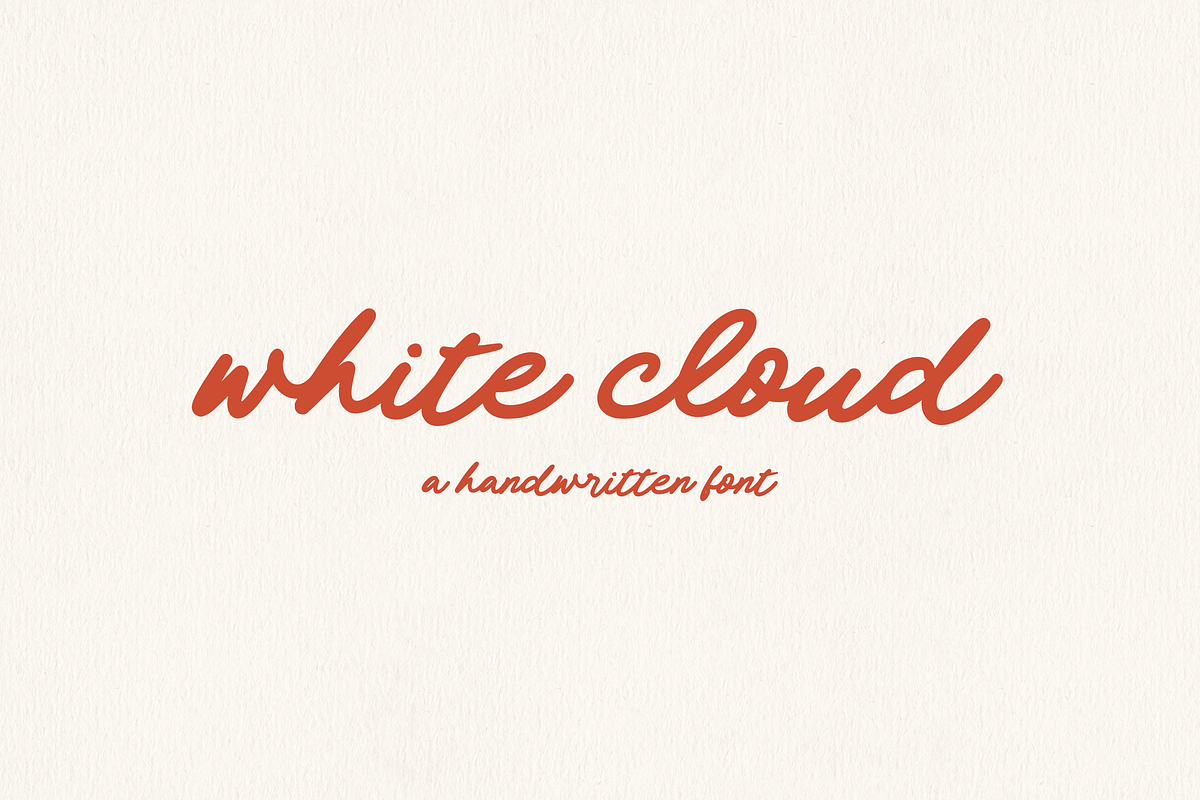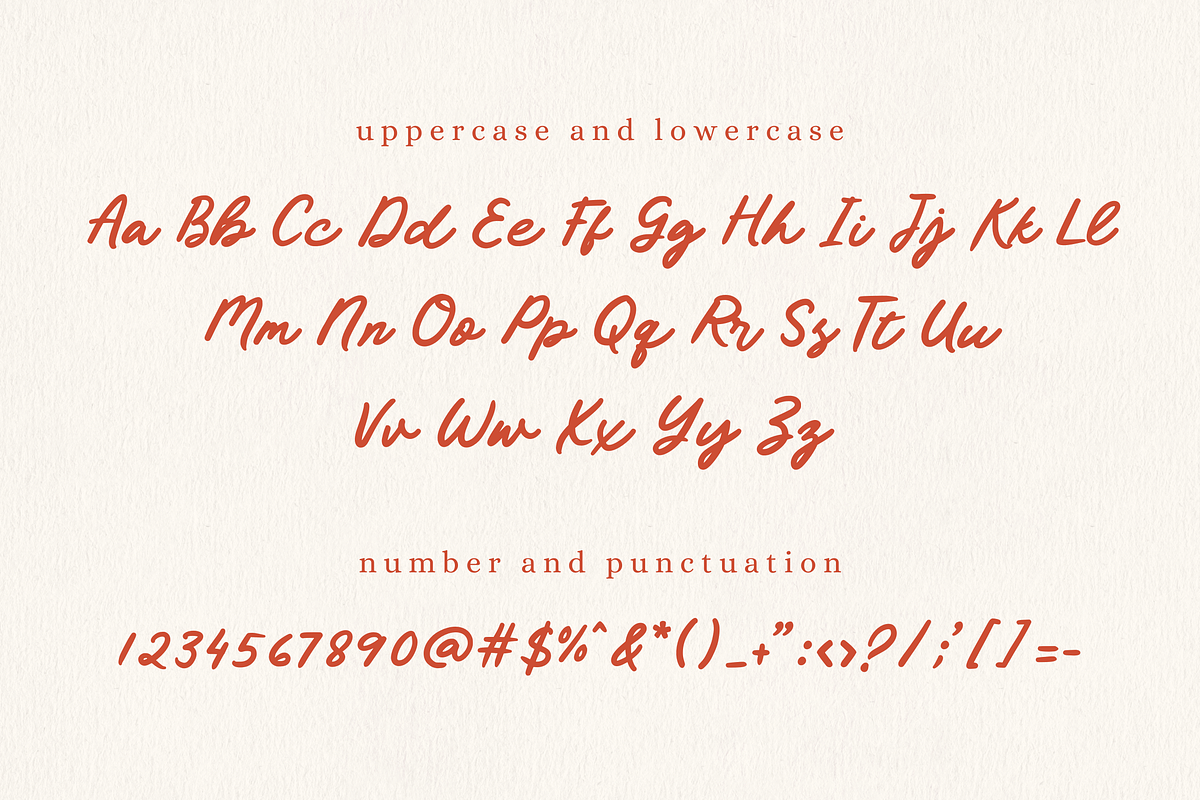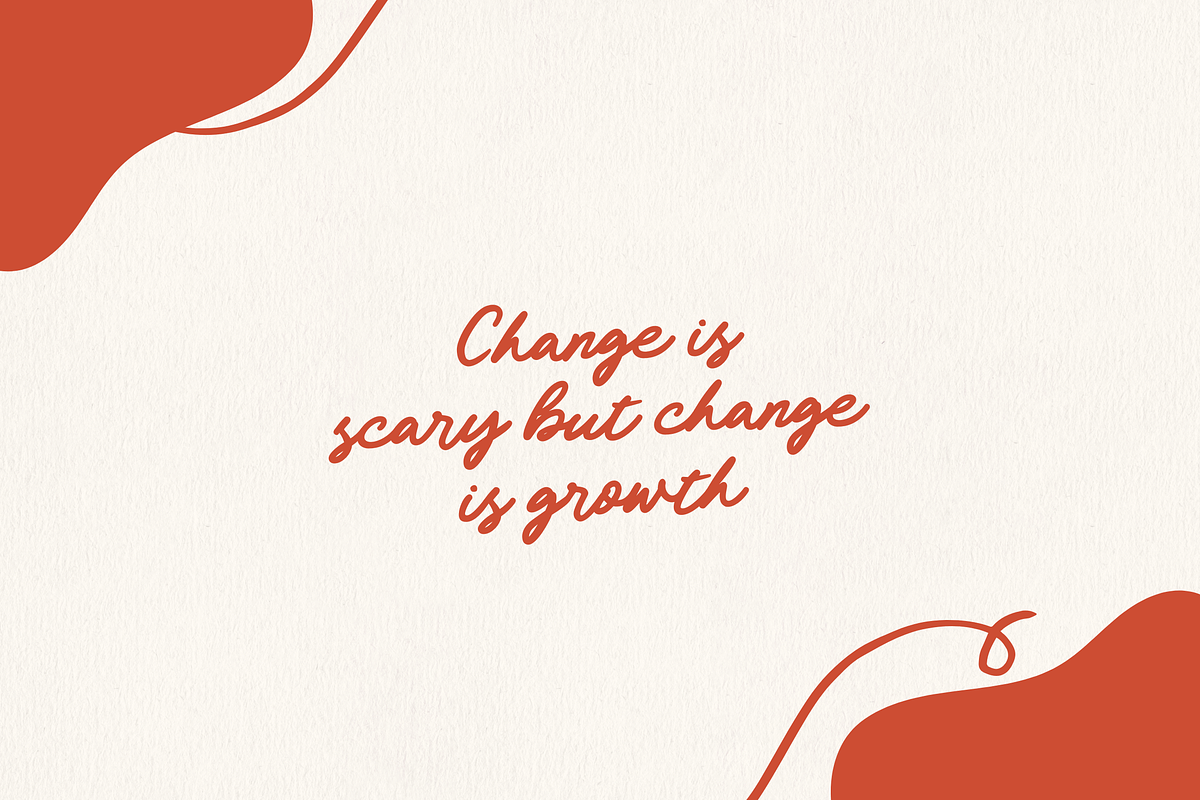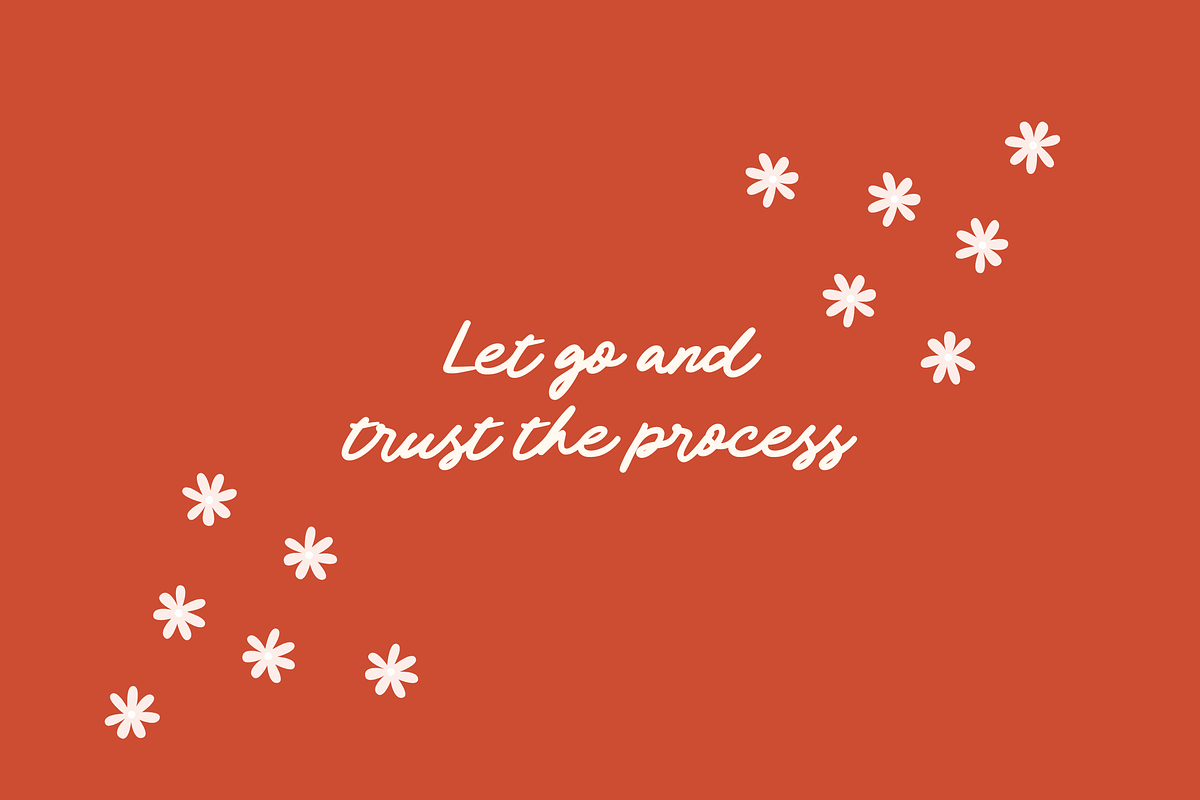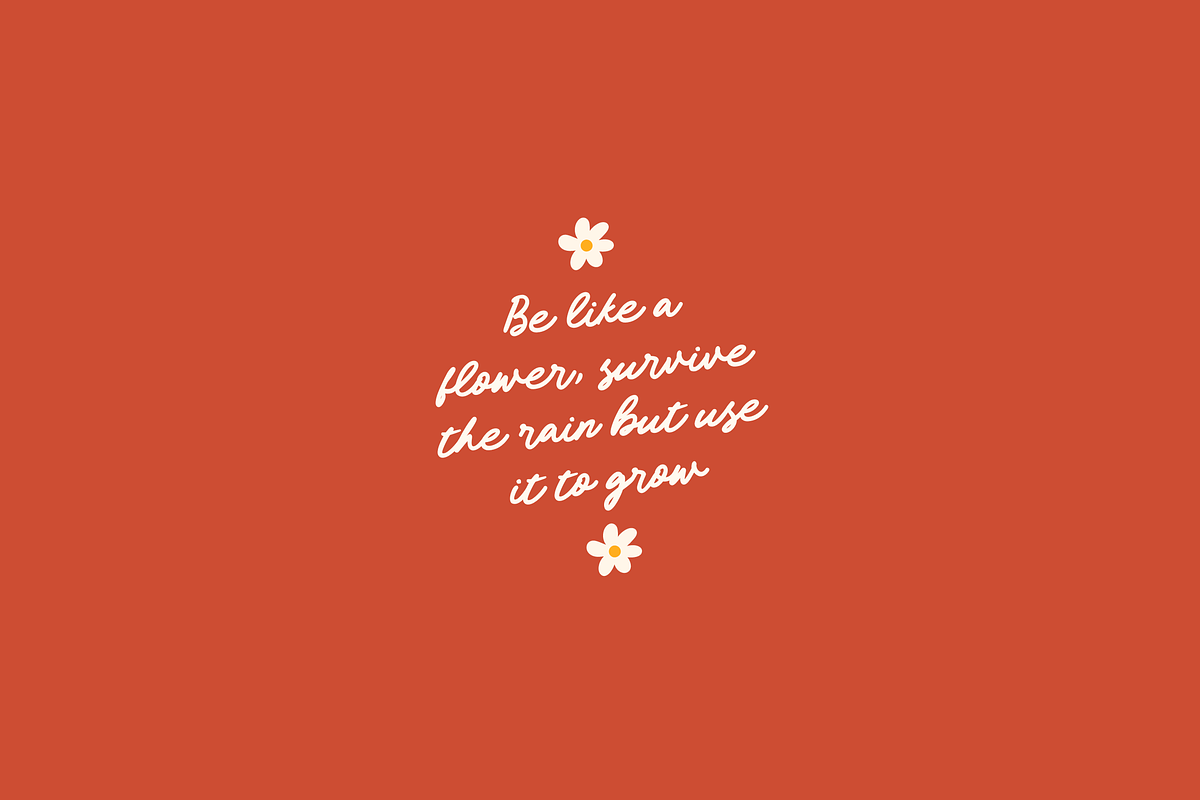
White Cloud Handwritten
Introducing, White Cloud - a handwritten font with a calligraphy feel. White Cloud will be perfect for stickers, greeting cards, logos, posters, invitations and more!
This font also suitable to be combined with san serif that will make your design more perfect. Also already PUA Encoded!